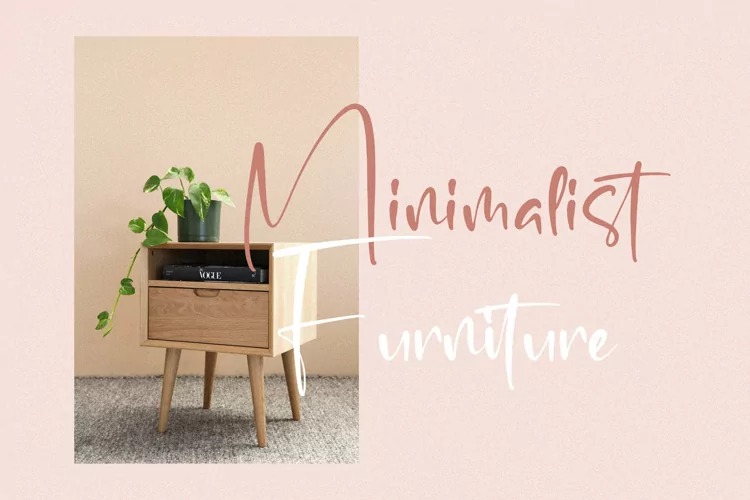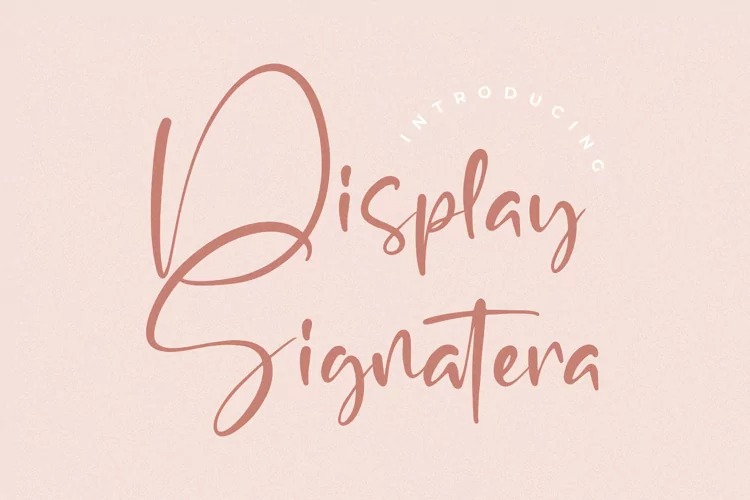
Display Signatera Script Font
This is a signature font created by Integritype Studio with multiple ligatures which gives it a natural feel and looks like real handwriting. suitable for any projects such as: logos, branding projects, homeware designs, product packaging, mugs, quotes, posters, shopping bags, t-shirts, book covers, name card, invitation cards, greeting cards, label, photography, watermark, special events, and all your other luxury projects that need a premium signature taste.